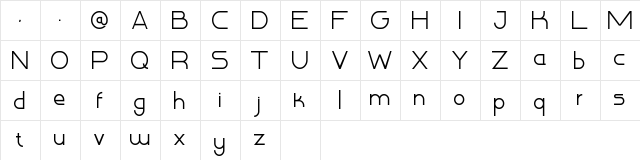
Kim Mochi Regular
Kim Mochi offers clean, dependable letterforms without strong stylistic allegiance, making it a practical choice for designers who need flexibility.